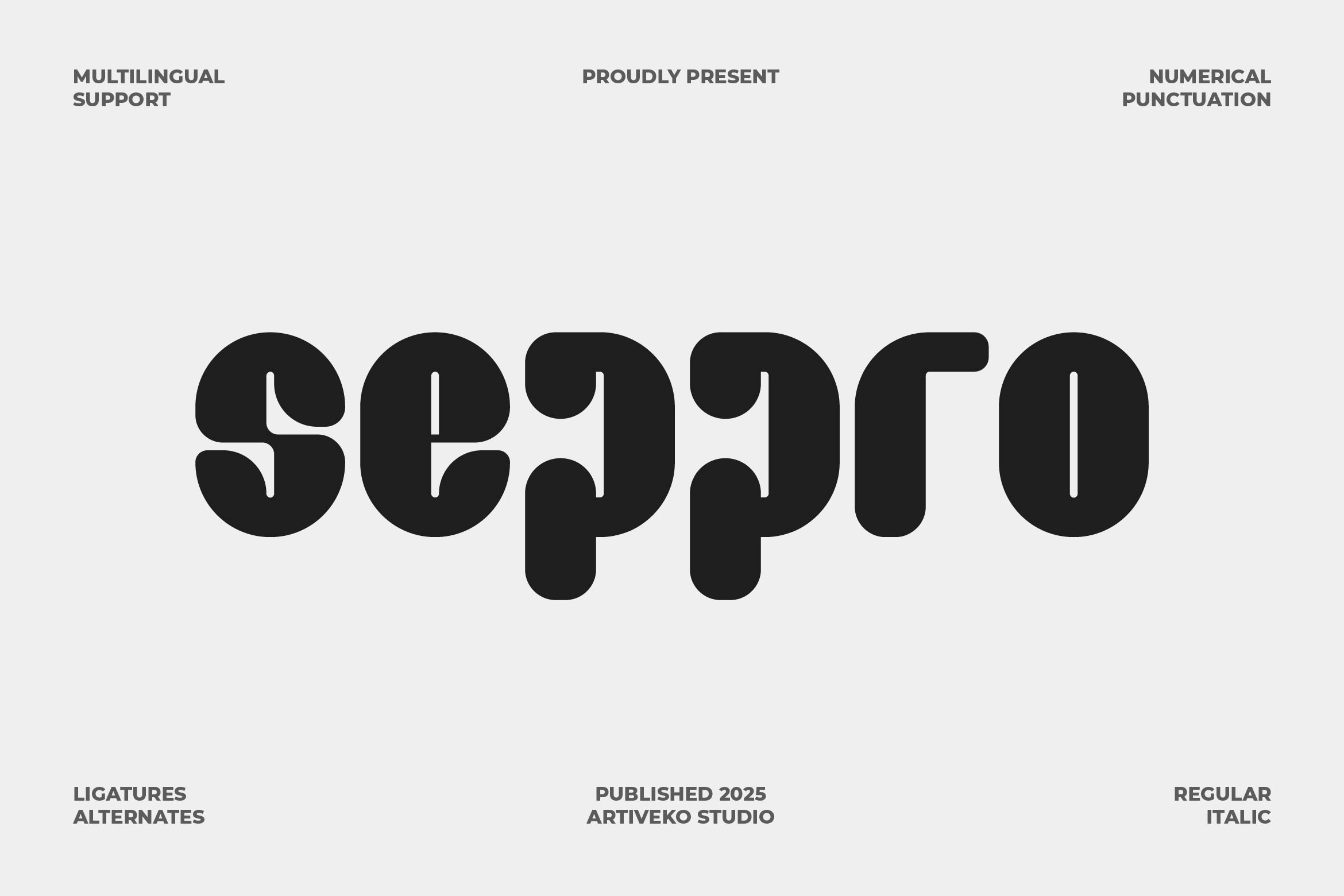
- Seppro Bold Strong Font
Seppro is a bold rounded sans serif font designed to blend strength with softness. Its thick strokes, smooth curves, and perfectly rounded terminals create a friendly yet confident look—ideal for branding, packaging, headlines, kids’ products, tech interfaces, and modern social media designs.
The rounded structure enhances readability while adding a welcoming, approachable personality. Seppro works beautifully for logo design, bold display titles, UI elements, and playful visual identities that need a warm but professional feel.
Complete with uppercase and lowercase letters, numerals, punctuation, multilingual characters, and stylistic alternates, Seppro provides flexible options for a wide range of creative applications.
Elevate your visuals with Seppro, a bold rounded sans typeface crafted for designs that are modern, soft, and delightfully impactful.